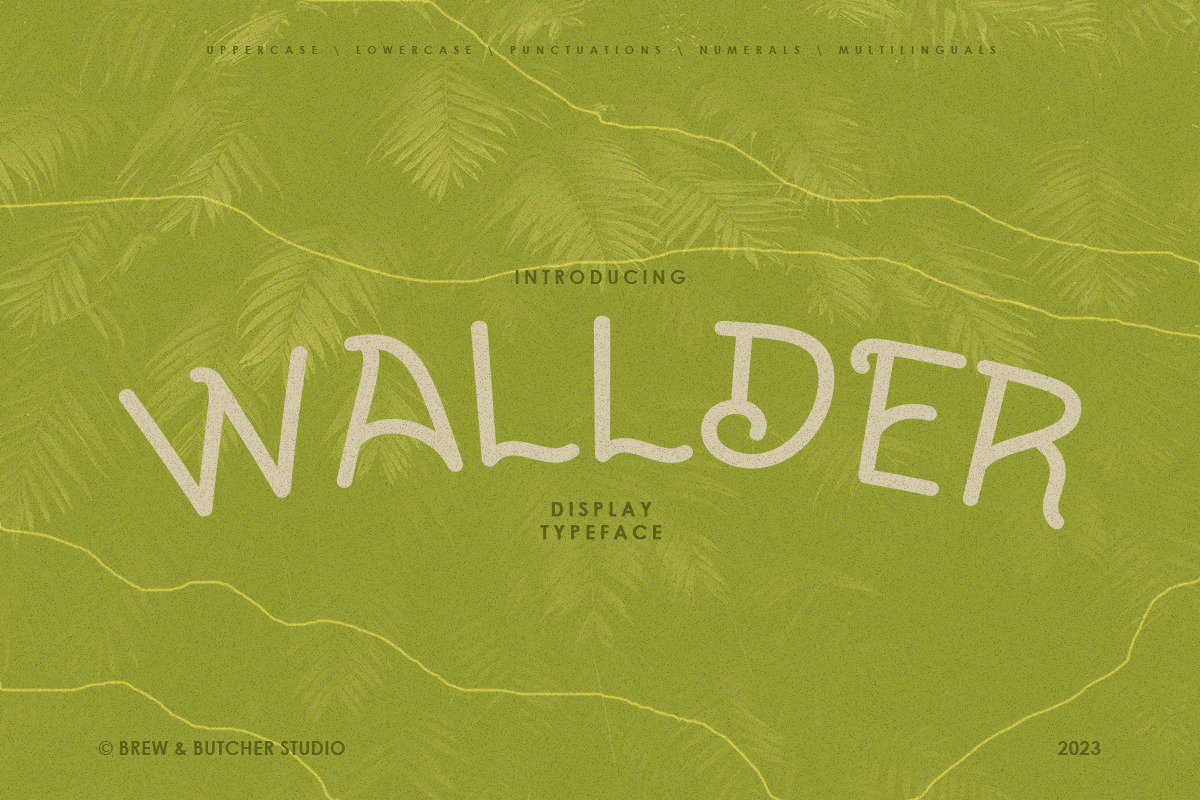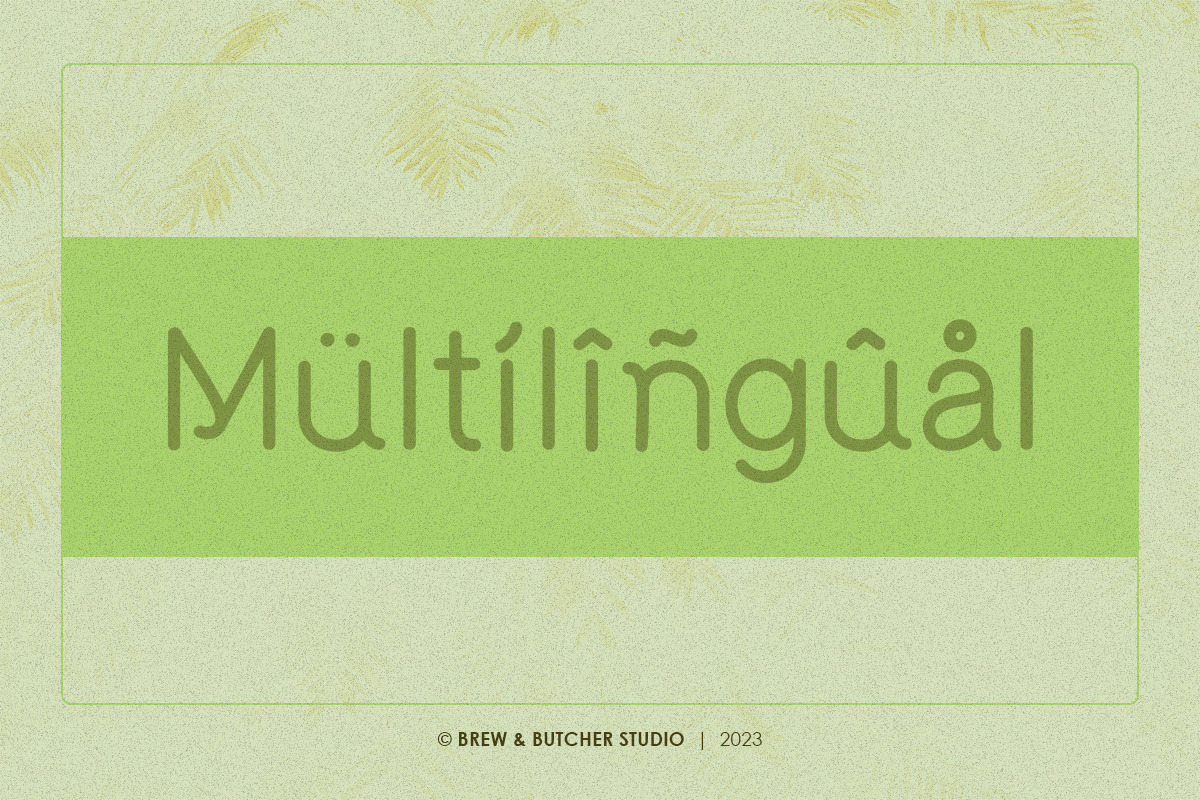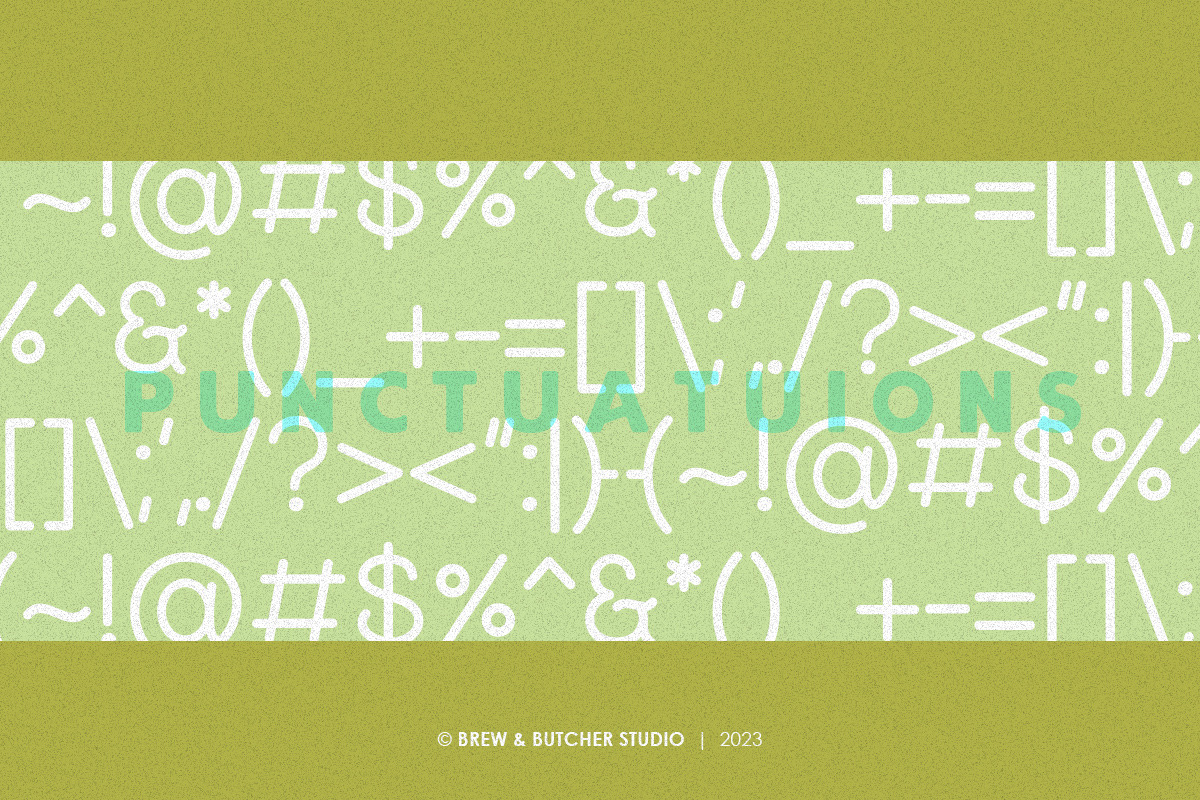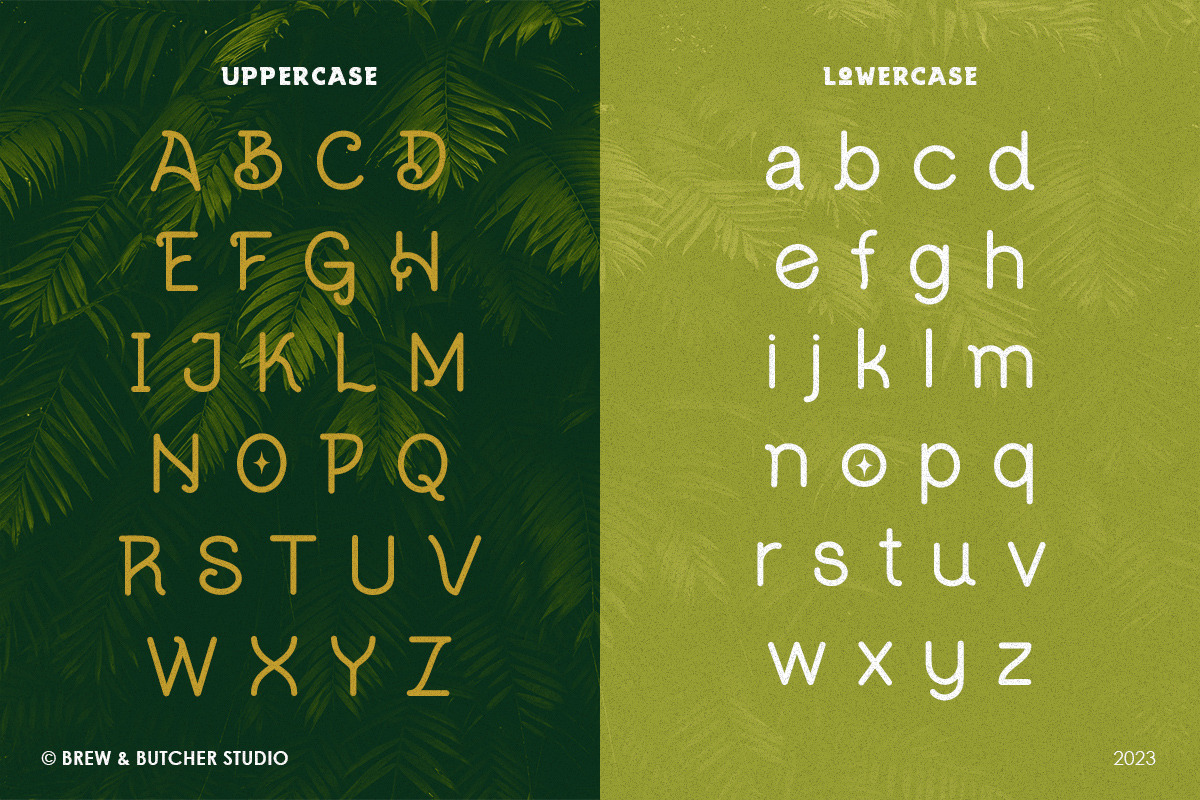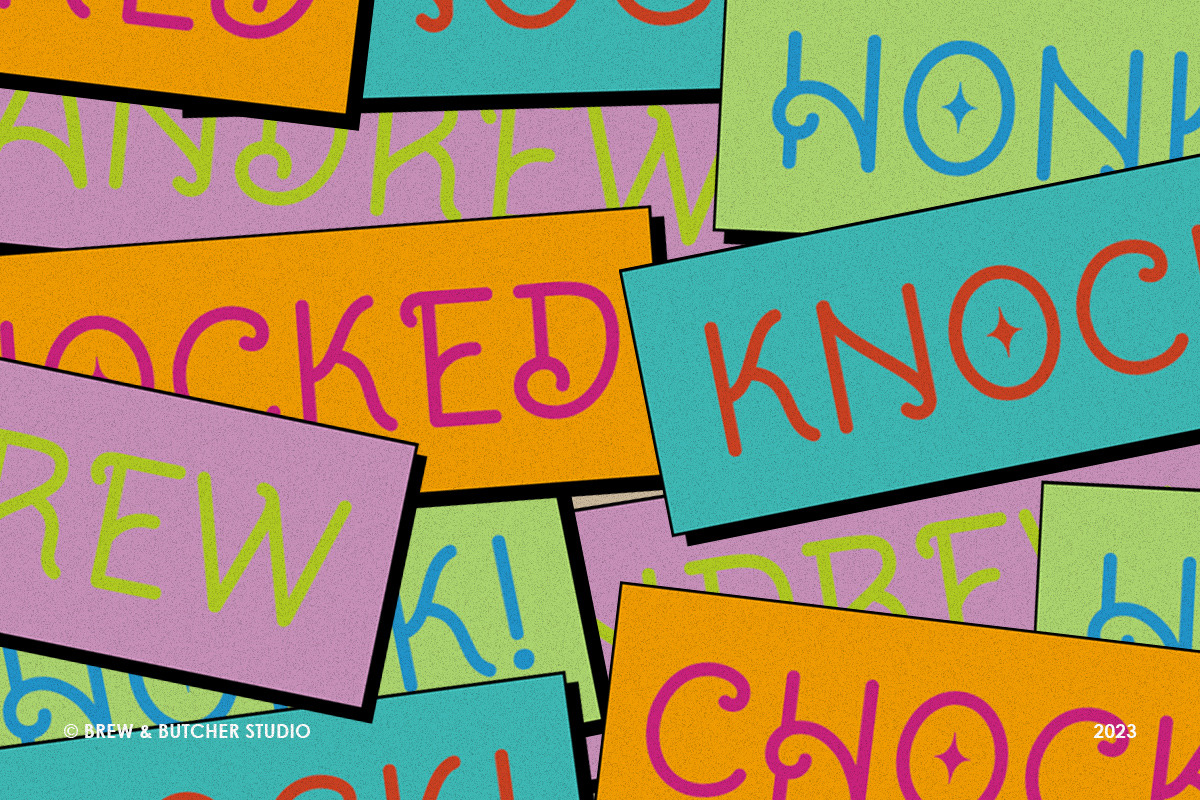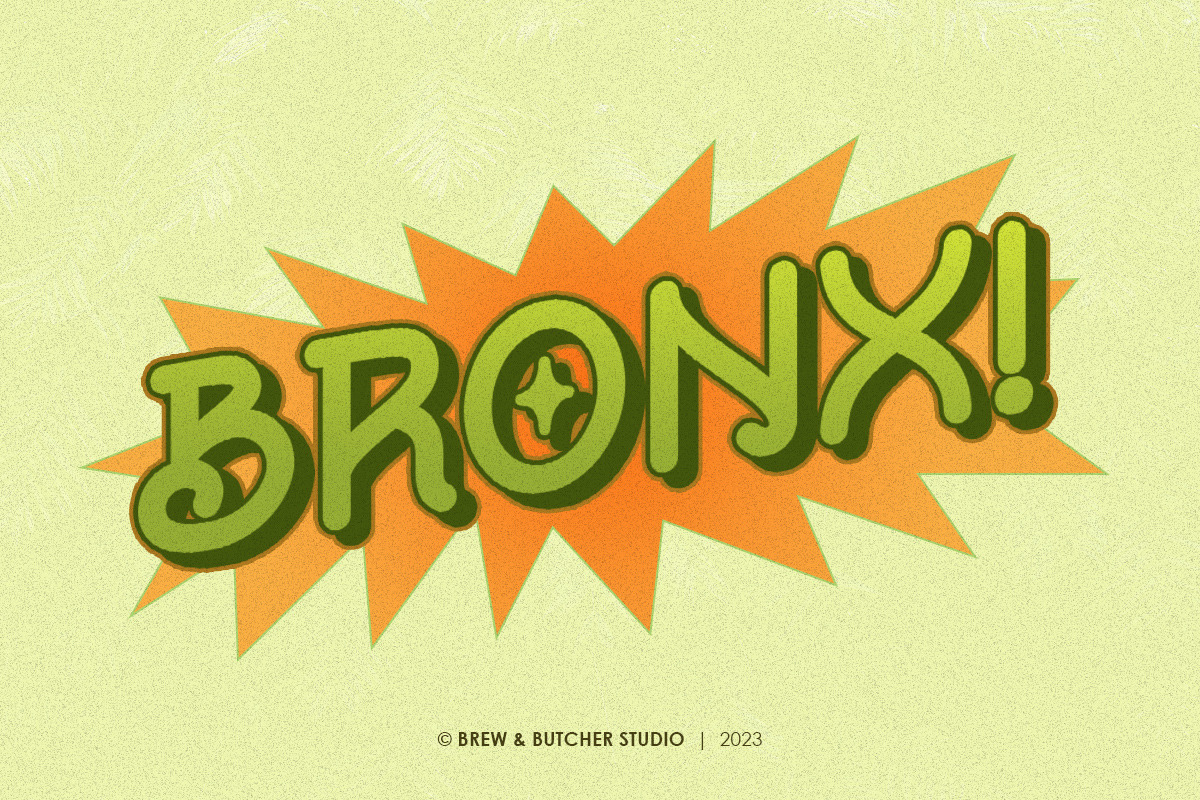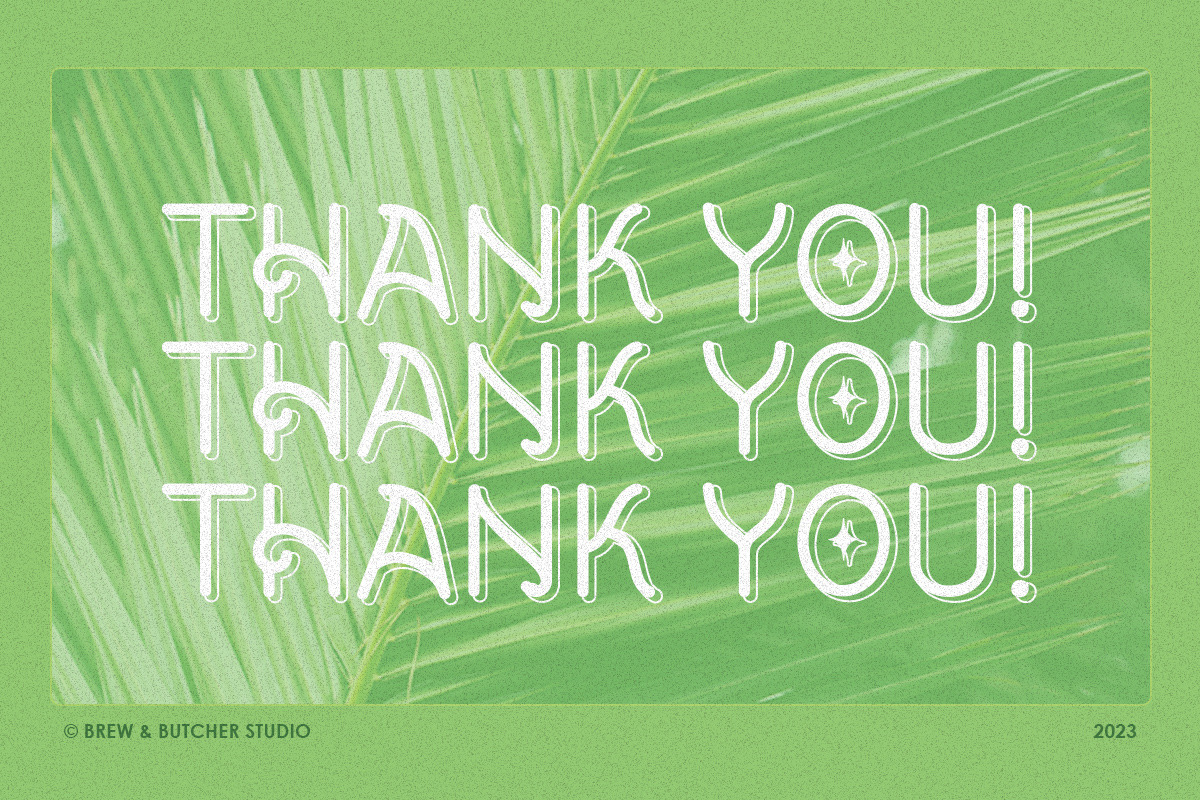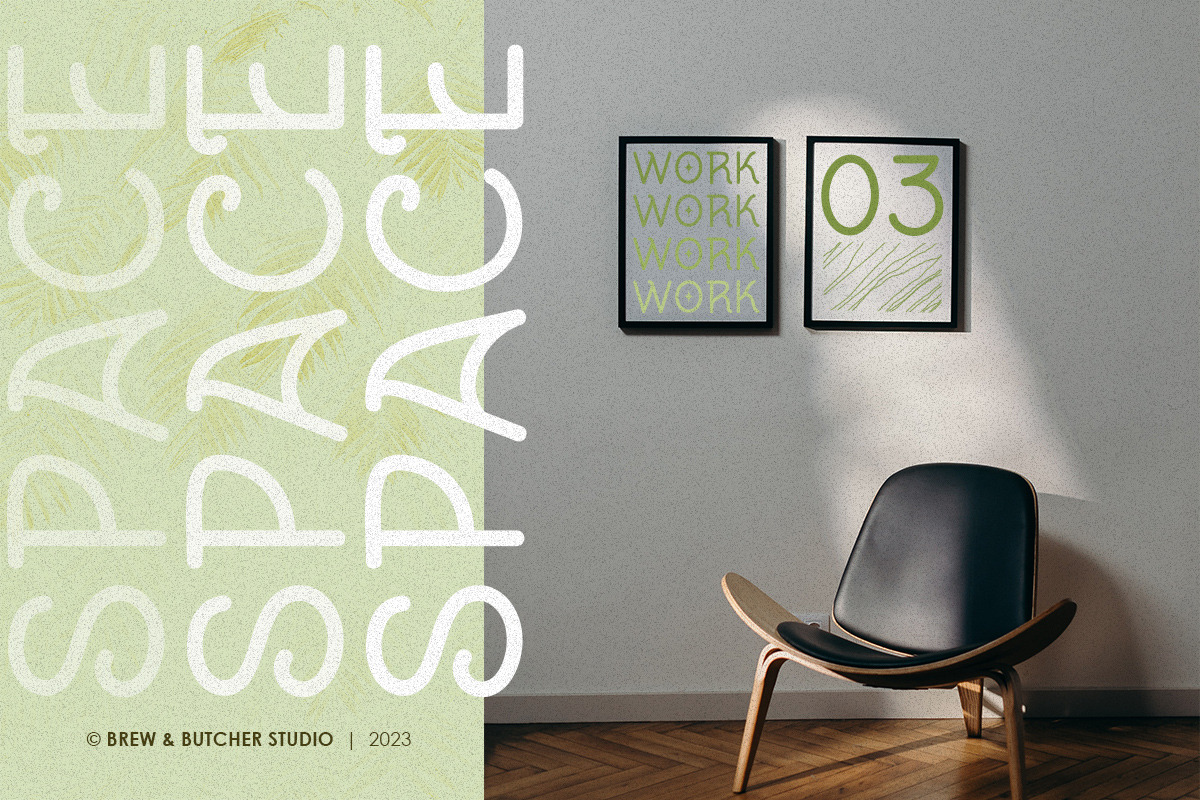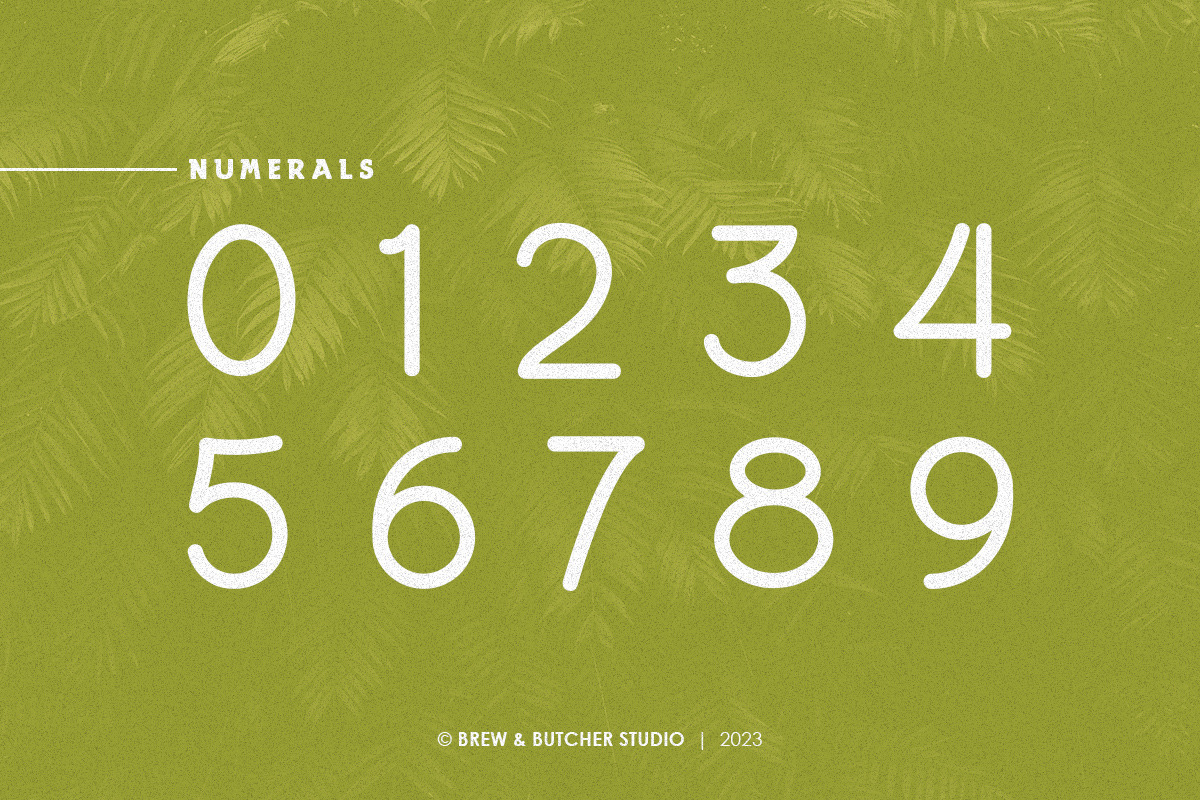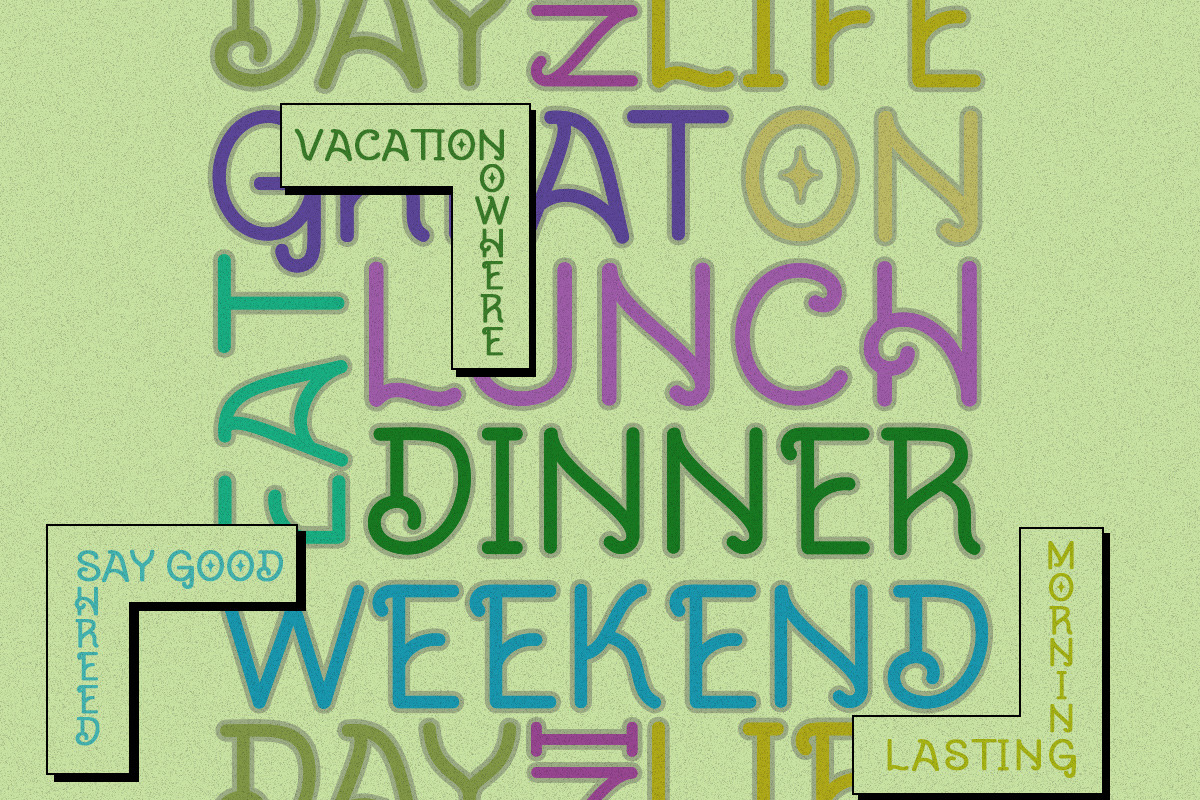
Wallder | Display Typeface
Wallder is a line font that has a repeating curved character. This font is very unique and very attention-grabbing because of its curve. Has a rounded character on each corner making it look cleaner and more elegant. This font is best to use for header or headline, poster, flyer, banner, landingpage, portfolio, name write, album covers, and etc.
- Multilanguage